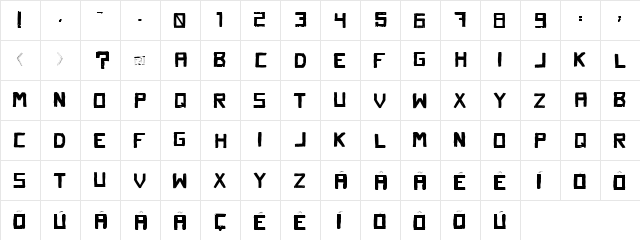
Prima09 Prima09
Design Context for Prima09 Typeface
Prima09 offers clean, dependable letterforms without strong stylistic allegiance, making it a practical choice for designers who need flexibility.
Pro Tip: Use Prima09 in both headline and body roles to test its range before committing to a single application.